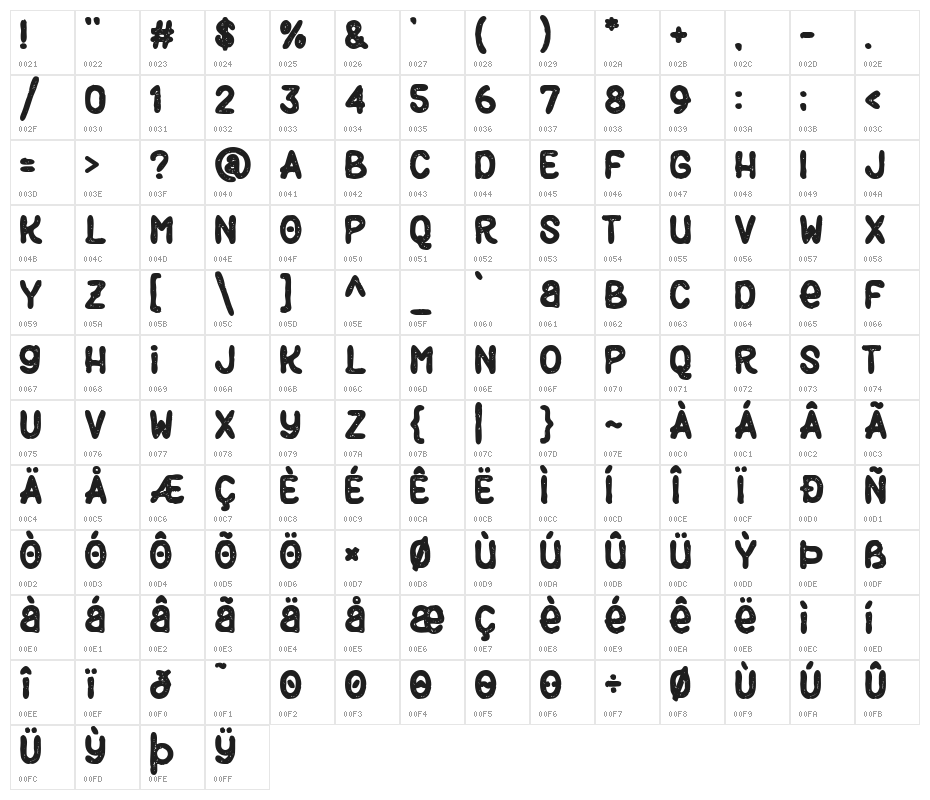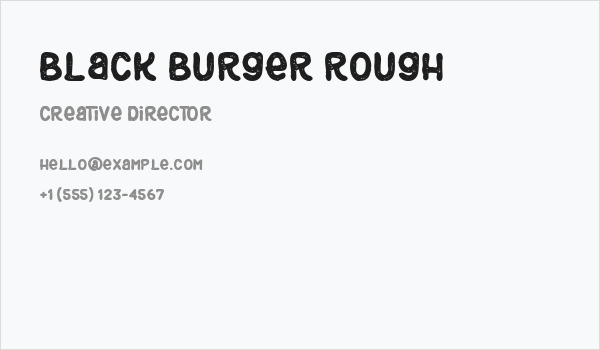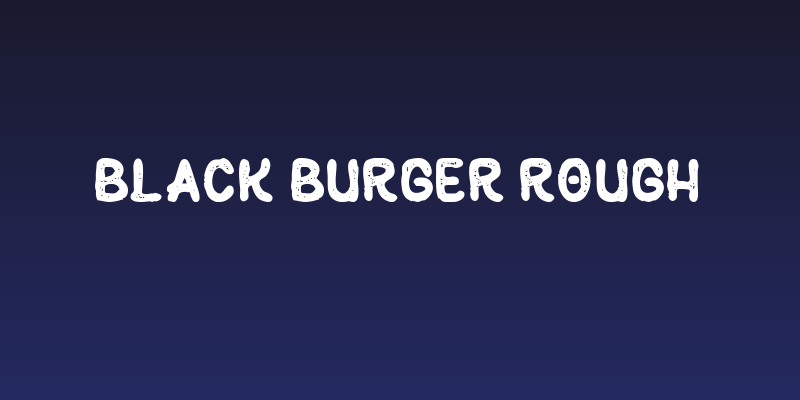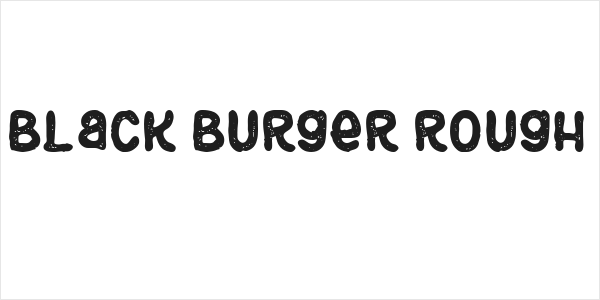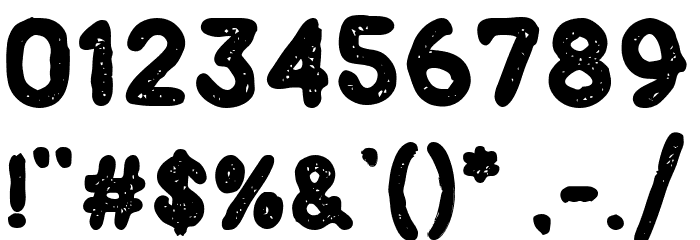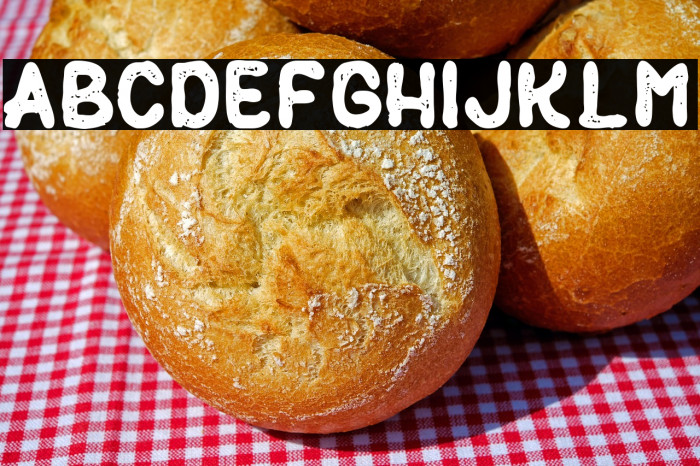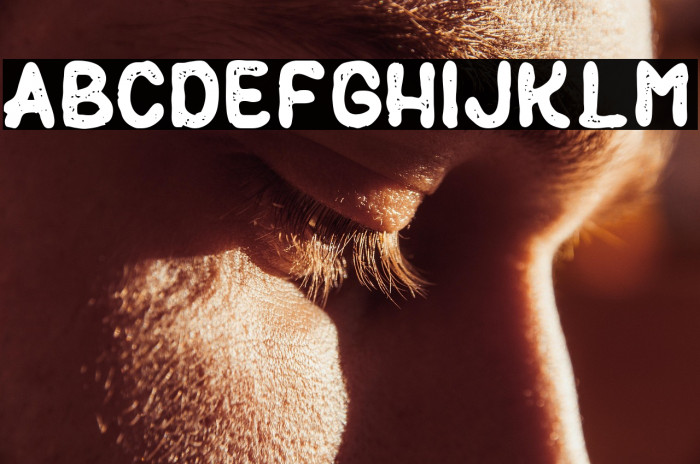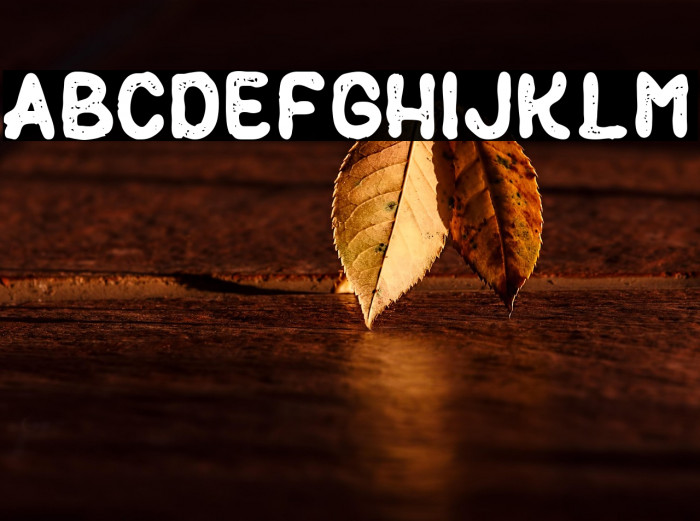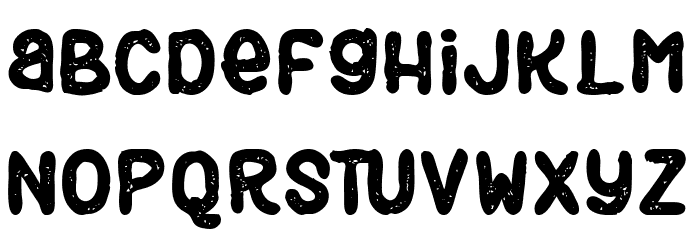
Black Burger Rough Font
Black Burger Rough Description
This font features a bold, rough texture that gives it a hand-drawn, organic feel. The letters are thick and rounded, with a distressed appearance that adds character and a vintage touch. The uppercase and lowercase letters maintain a consistent style, with slightly irregular edges that enhance its casual and playful nature. The numbers and special characters follow the same design, ensuring uniformity across all glyphs. This font is ideal for projects that require a bold statement with a touch of whimsy and creativity.
| Proposed Projects | Perfect for branding, posters, packaging, and any design needing a bold, playful touch. |